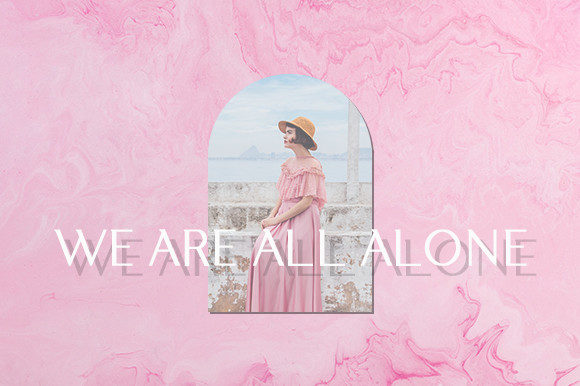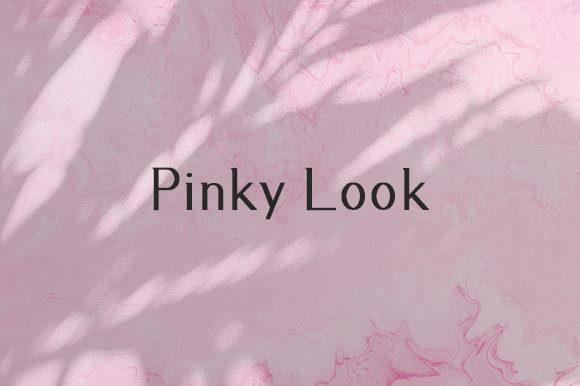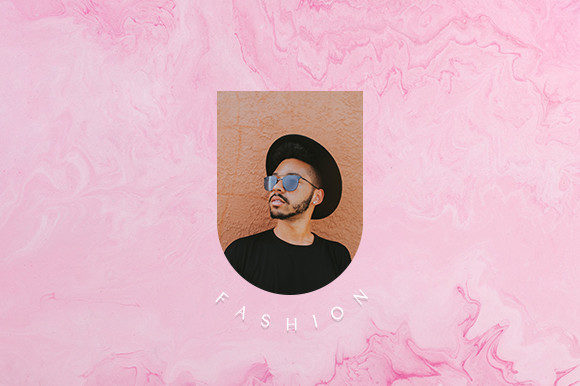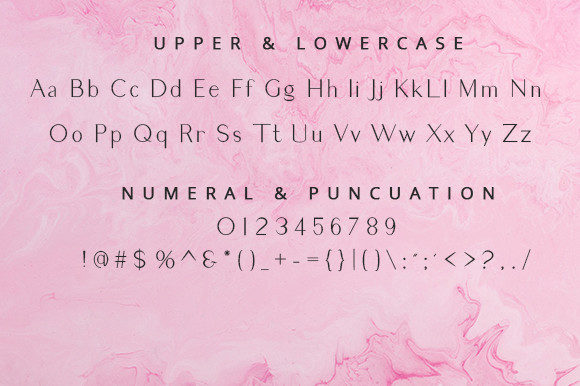
Unlock the Magic of Fairy Mount Font
Have you ever stared at a blank canvas, waiting for inspiration to strike? You finally see it – a spark of creativity that ignites a new project. The thrill of bringing it to life is exhilarating, but the right tools can make all the difference. That’s where the Fairy Mount Font comes in – a delicate and elegant serif font that adds a touch of whimsy to any creation.
This enchanting font is perfect for designers looking to add a subtle yet sophisticated flair to their work. Whether you’re crafting a brand identity, designing a book cover, or creating a website, Fairy Mount Font has the potential to elevate your project to new heights. Its versatility and refinement make it a valuable asset to any font library, and its beauty is sure to captivate your audience.
Fairy Mount Font Key Features
- Unique Characteristics: This font features a whimsical and elegant design, with intricate details and subtle flourishes that give it a touch of magic and wonder.
Fairy Mount Font Review
I recently had the chance to work with the Fairy Mount Font, and I have to say, it’s a lovely addition to any design project. ✨ The font’s whimsical and dreamy feel is perfect for creating a sense of magic and wonder.
- ✨ The font’s unique characters and ligatures add a touch of personality to any text.
- ✨ The font is highly customizable, allowing you to adjust the weight, size, and spacing to suit your design needs.
- ✨ The font is well-suited for titles, headings, and other display text, where you want to make a statement.
- ⚠️ The font may not be the best choice for body text, as it can be a bit difficult to read at smaller sizes.
- ⚠️ The font’s unique characters can sometimes clash with other fonts or design elements, so be sure to test it carefully in your design.
Overall, I’m really enjoying working with the Fairy Mount Font. It’s a great choice for designers who want to add a touch of magic and whimsy to their projects. With a little care and attention, it can really elevate your design and make it stand out.
The Fairy Mount Font is ideal for use in:
- Children’s book illustrations and design
- Magazine and newspaper headlines
- Graphic novels and comics
Remember to use the font in moderation